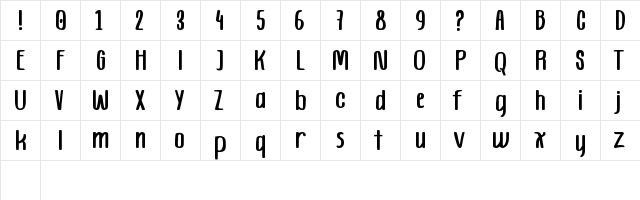
Homestay Demo Regular
Design Context for Homestay Demo Typeface
Homestay Demo is a composed and adaptable typeface that performs quietly and consistently across a wide range of design contexts.